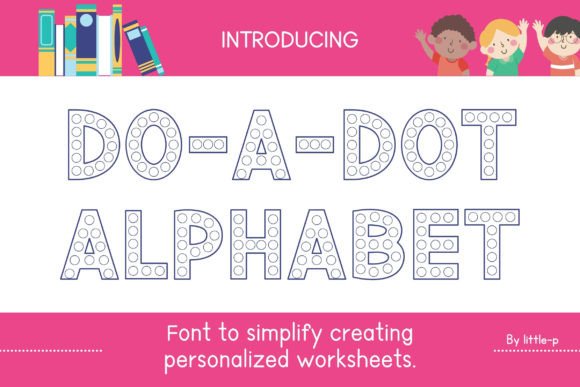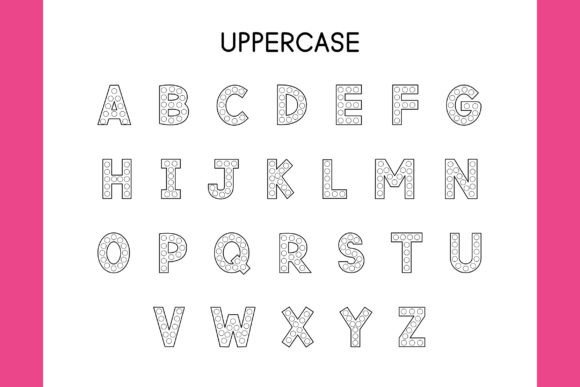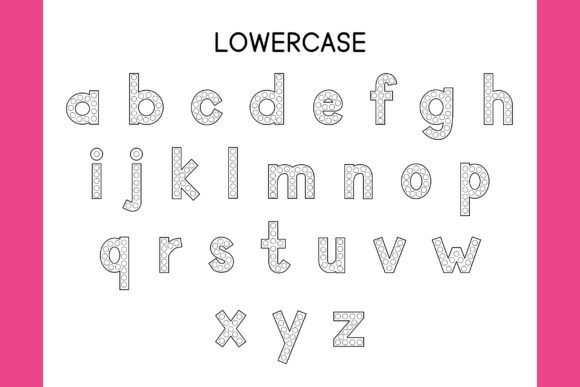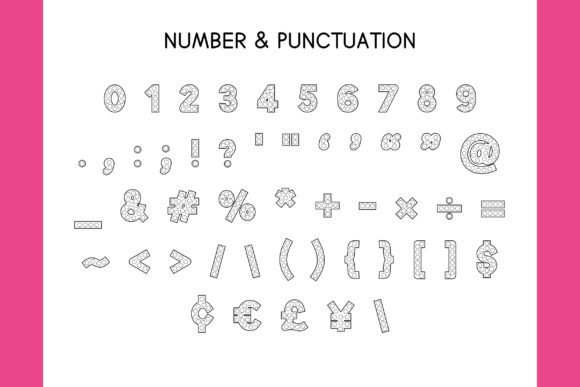
Do-a-dot Alphabet Font
The Do-a-dot Alphabet font is a versatile tool for educators and caregivers alike. Crafted with creativity and flexibility in mind, this font empowers users to design custom worksheets tailored to their specific teaching objectives. By combining learning with fun, ‘Do-a-dot Alphabet’ activities facilitate language and letter comprehension while also refining fine motor skills. Engage young learners in immersive experiences that enhance sensory awareness and boost concentration levels. Perfect for a range of educational settings, including kindergarten, homeschooling, and beyond, the ‘Do-a-dot Alphabet’ font is the key to unlocking limitless learning possibilities.